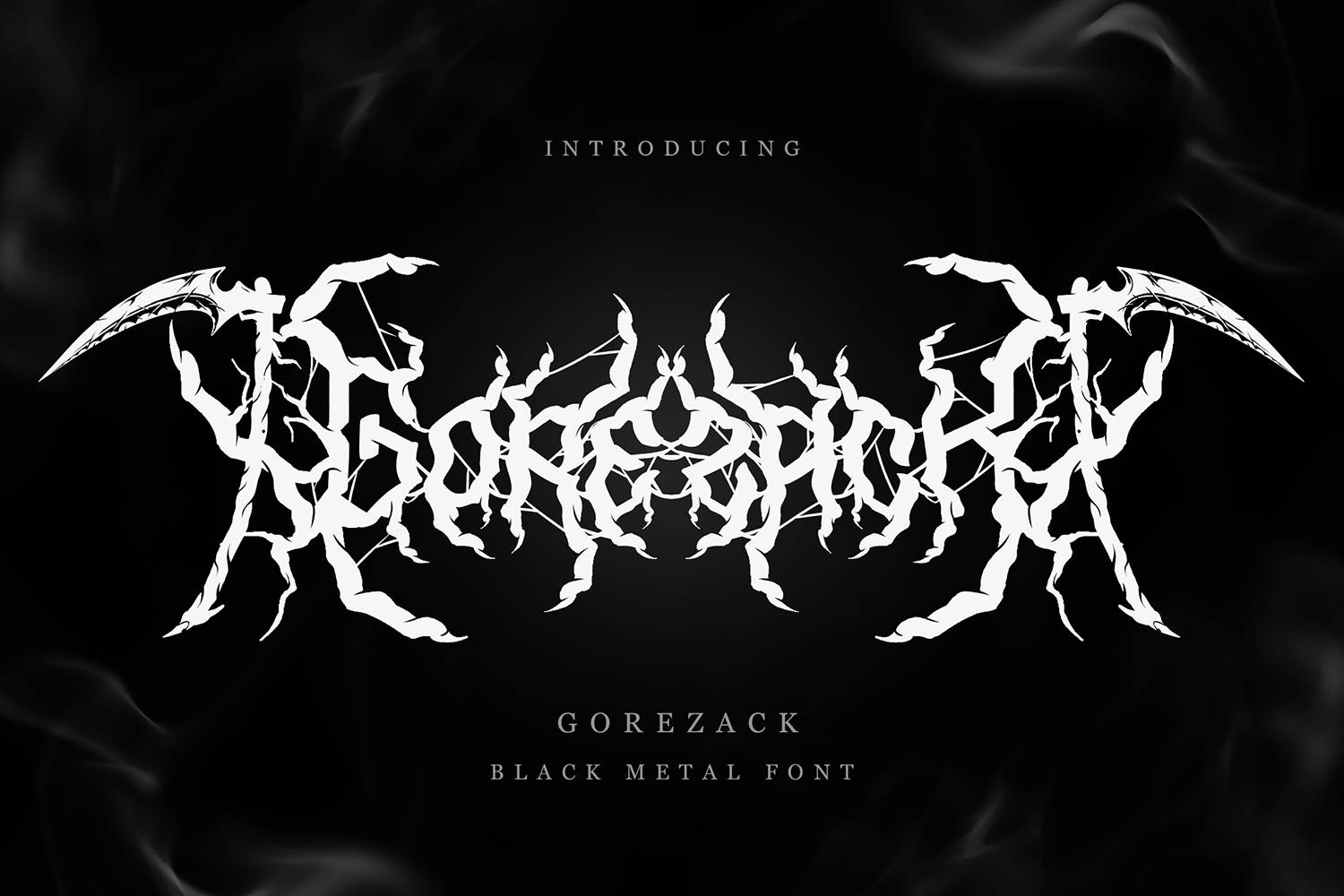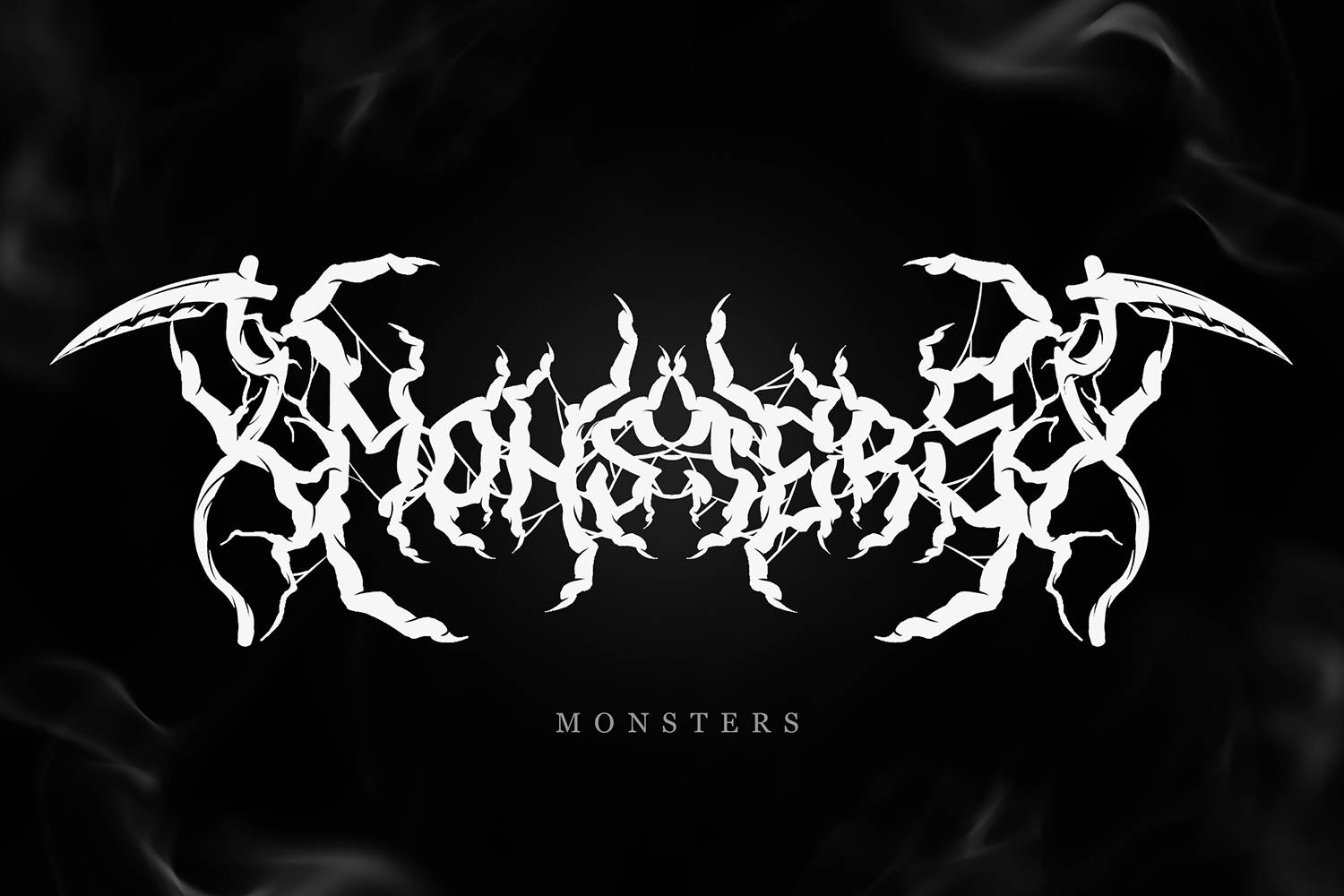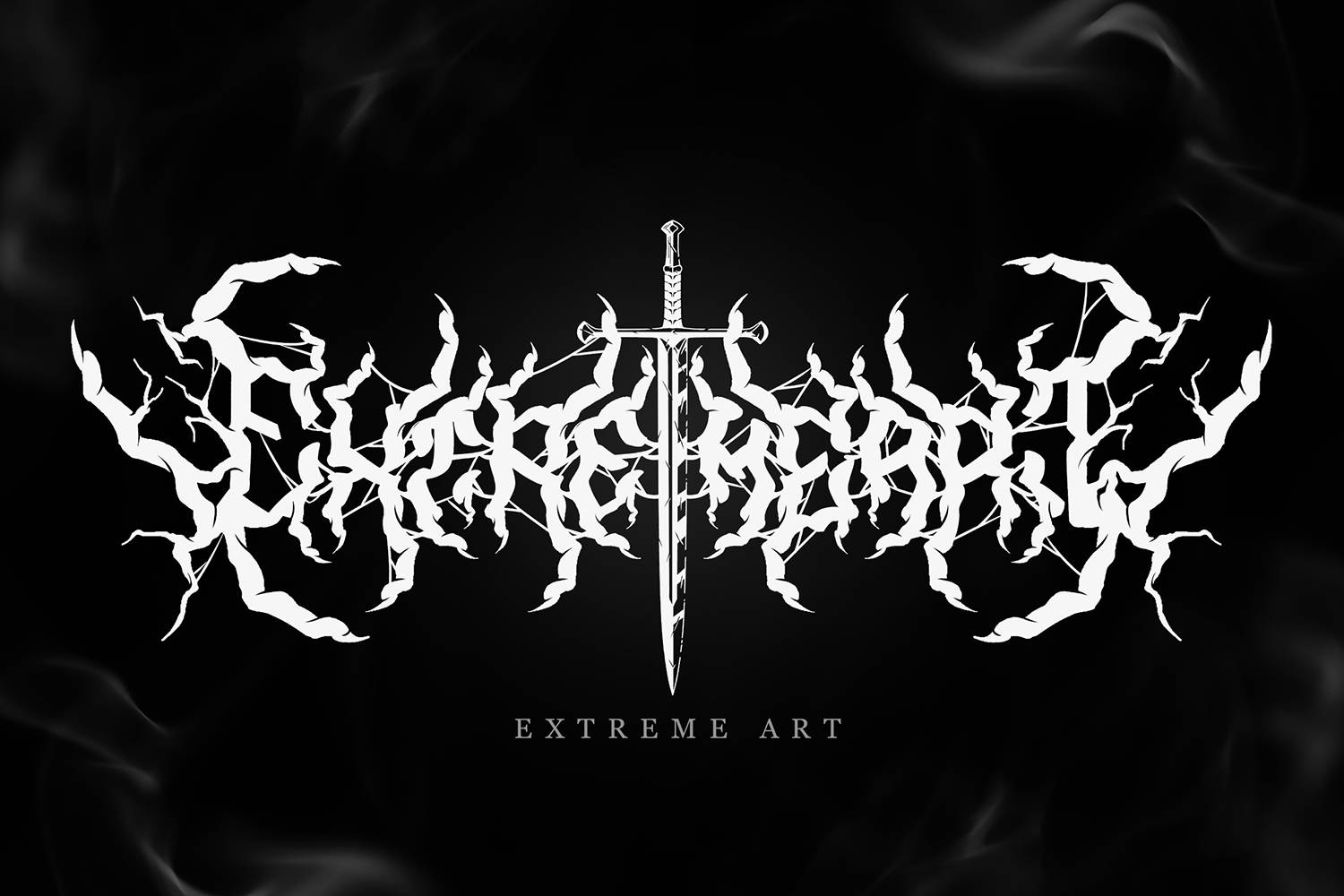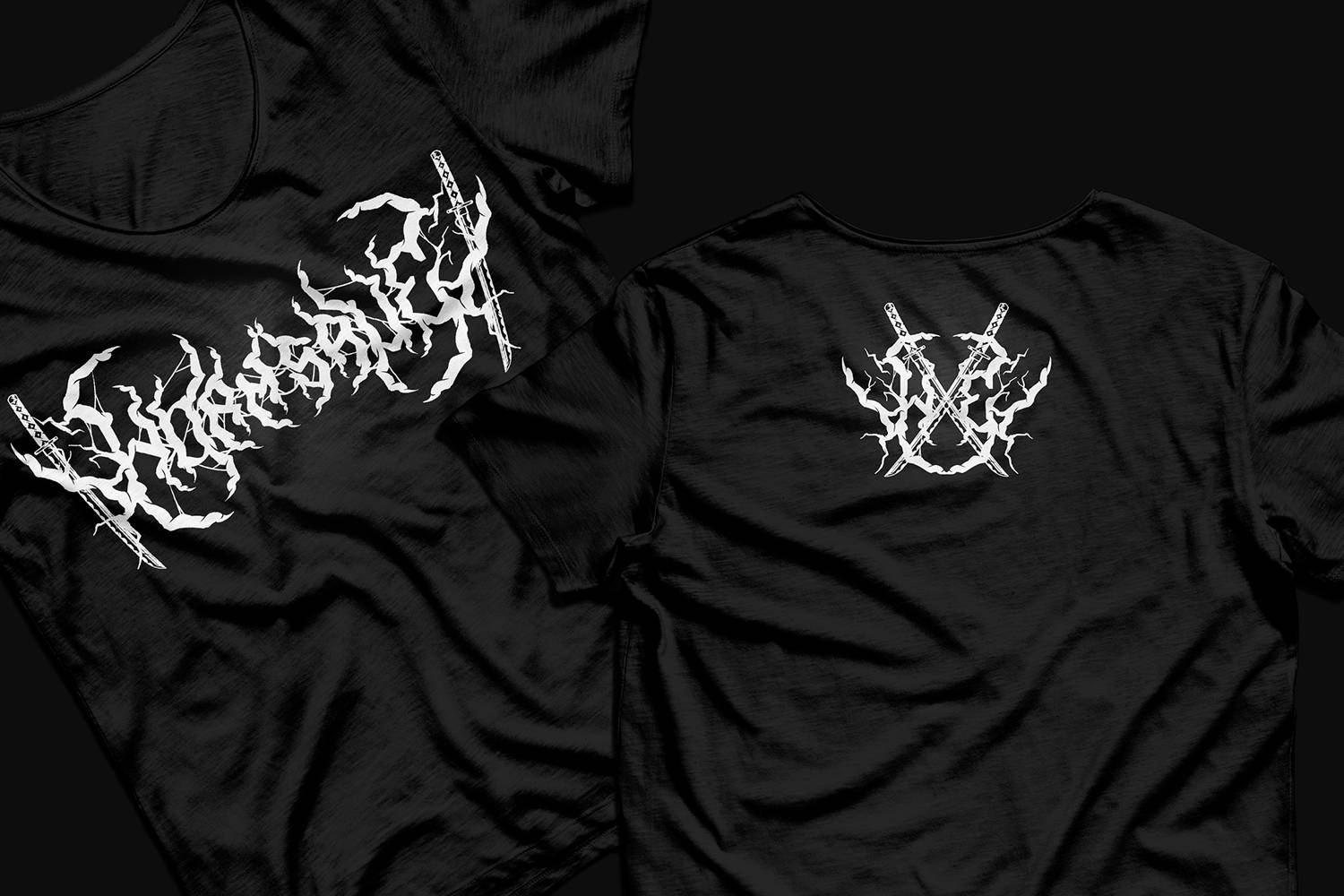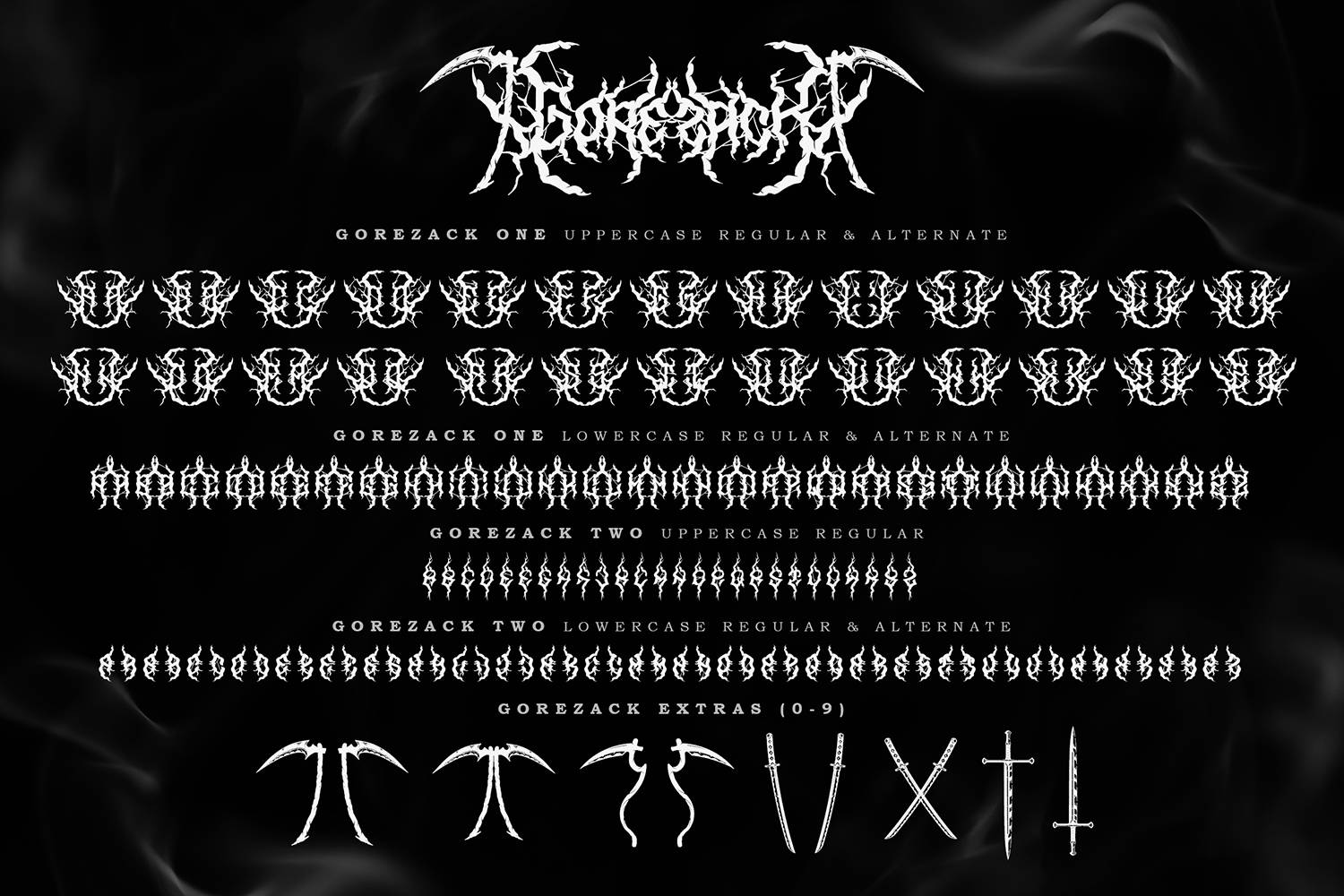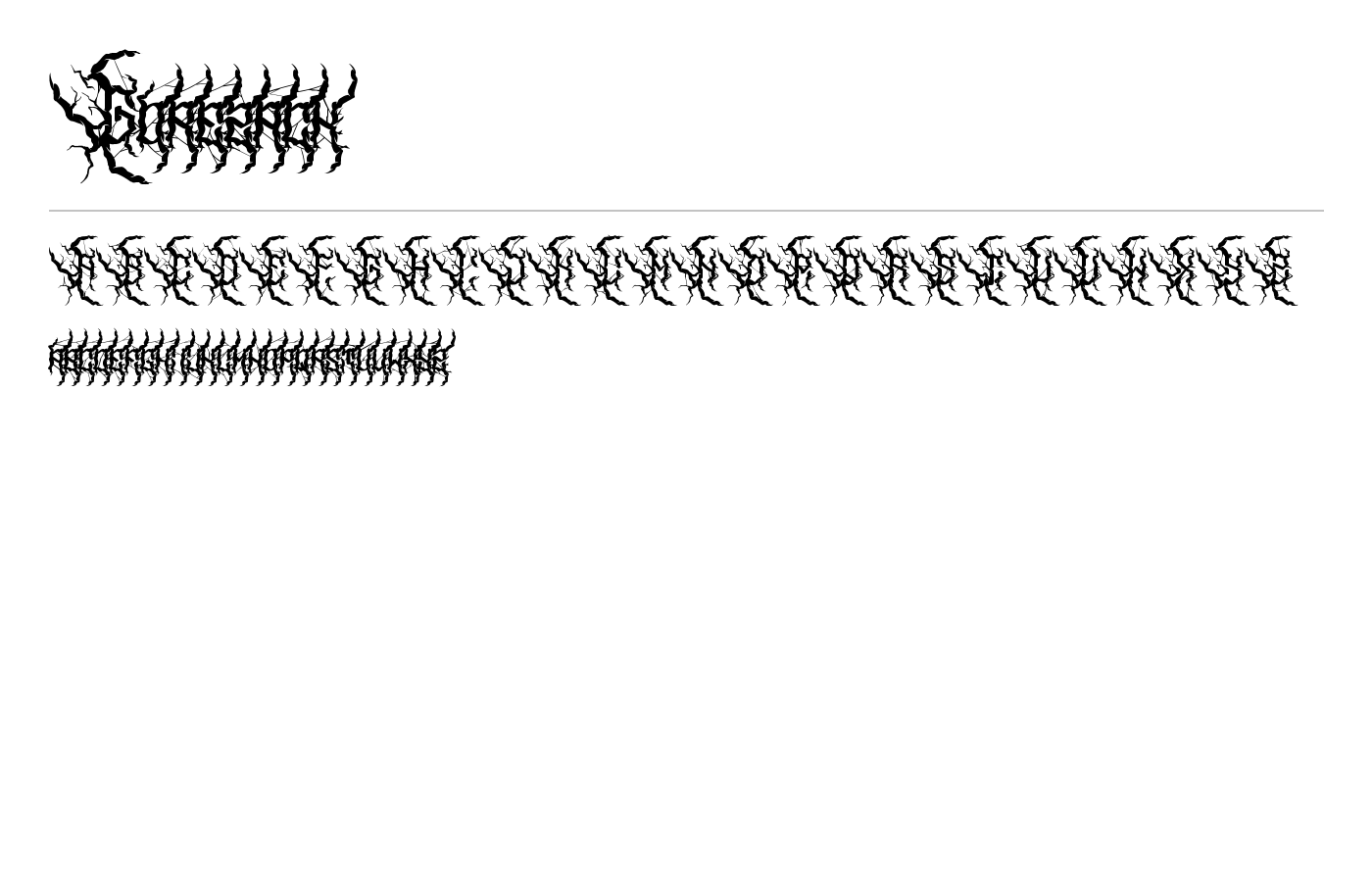
Gorezack is an intense, decorative typeface characterized by sharp, organic, branching strokes that create a chaotic and edgy appearance. This highly stylized, almost abstract design makes it best suited for extreme metal band logos, horror-themed artwork, or any project requiring a dark, aggressive, and rebellious mood. Due to its complex and dense letterforms, Gorezack works best at large sizes for striking headlines rather than body text.
Gorezack Font
About Gorezack Font